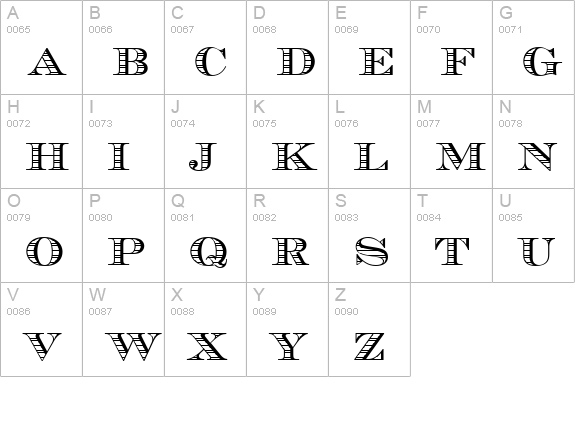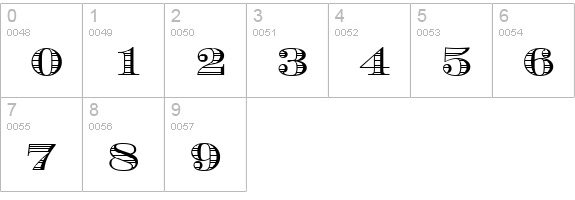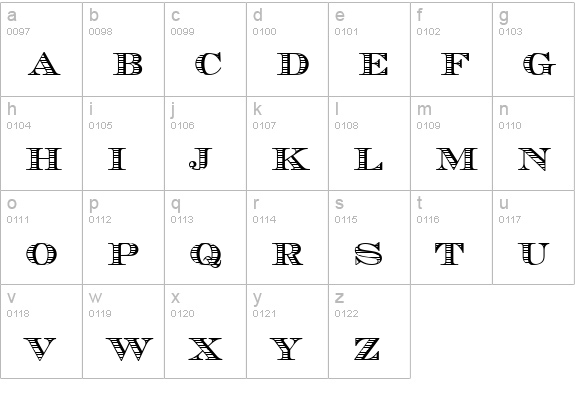
ChevalierStrSCD Font Details
ChevalierStrSCD font exudes a timeless elegance with its intricate serif design and refined curves. This font is perfect for projects that require a touch of sophistication and class, making it ideal for invitations, stationery, and branding materials. The classic yet modern style of ChevalierStrSCD font ensures that your text stands out and captures attention. What's even better is that ChevalierStrSCD font is free to download at FontsMarket.com, allowing you to add this exquisite typeface to your collection without any cost. Embrace the beauty and versatility of ChevalierStrSCD font in your next design project and elevate your work to new heights of elegance and charm.